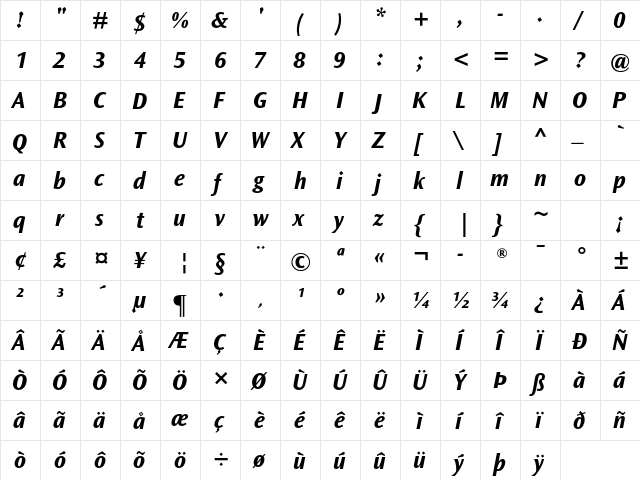
Ocean Sans Std Bold Italic Font Preview
Ocean Sans Std Bold Italic
Ocean Sans Std Bold Italic Font Details
| Designer | Chong Wah |
Design Context for Ocean Sans Std Typeface
Ocean Sans Std is a composed and adaptable typeface that performs quietly and consistently across a wide range of design contexts. The slanted form adds forward momentum and visual energy. Its bold stroke weight gives it real presence on the page.
Pro Tip: Try Ocean Sans Std for annotation and caption copy alongside an upright companion — the contrast in angle creates a dynamic but ordered typographic system.